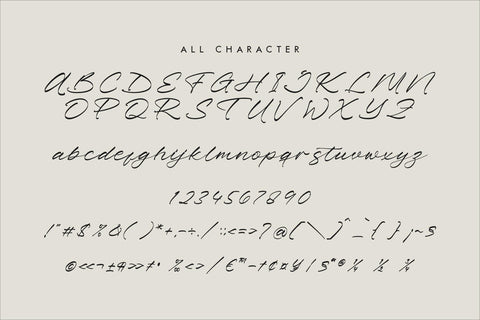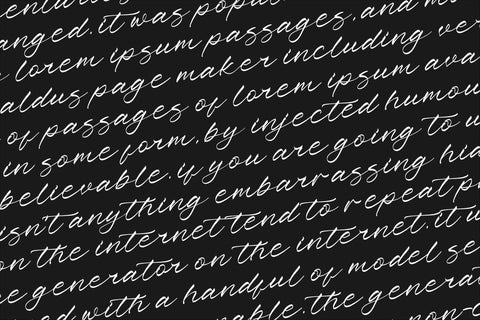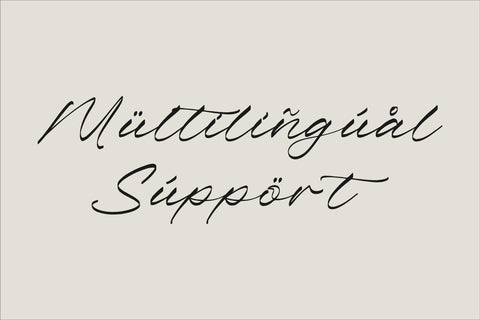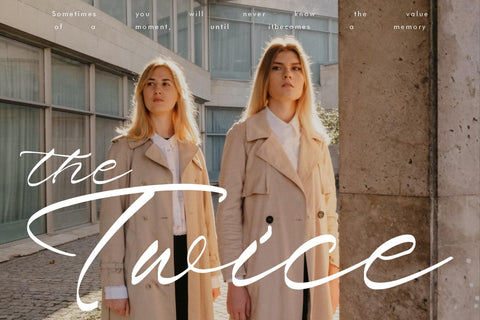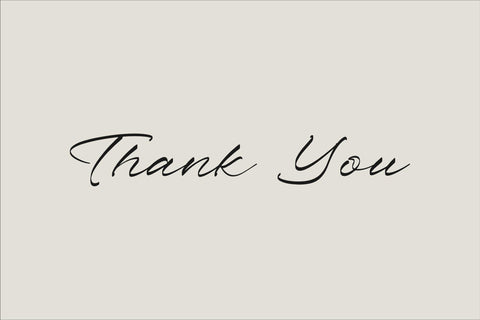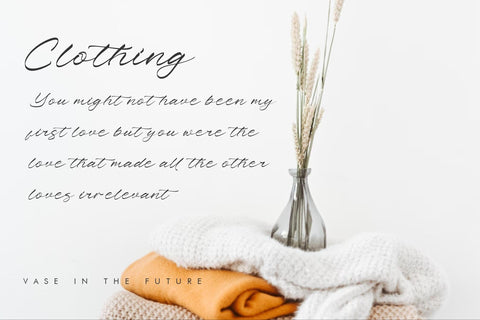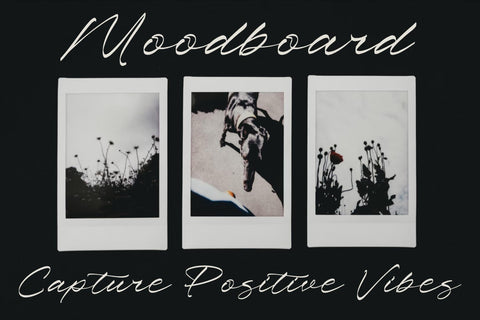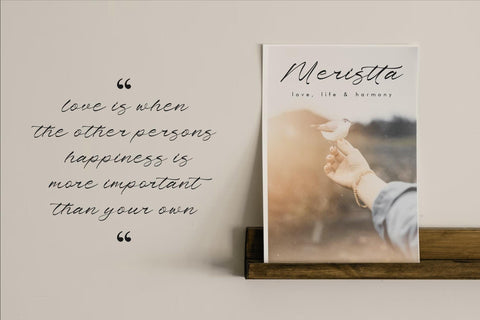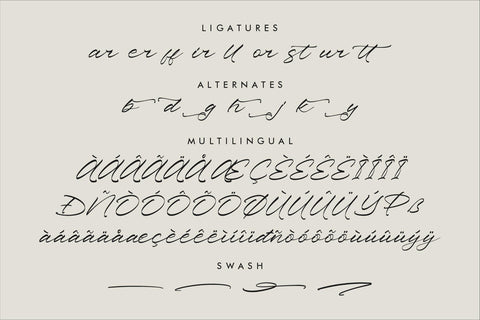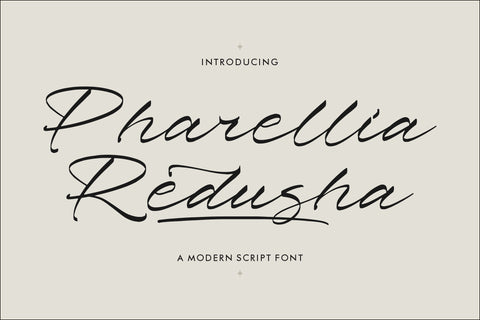
Pharellia Redusha - Modern Script Font
Proudly present Pharellia Redusha - Modern Script Font , created by Storytype,
A luxury script that has own unique style & modern look.